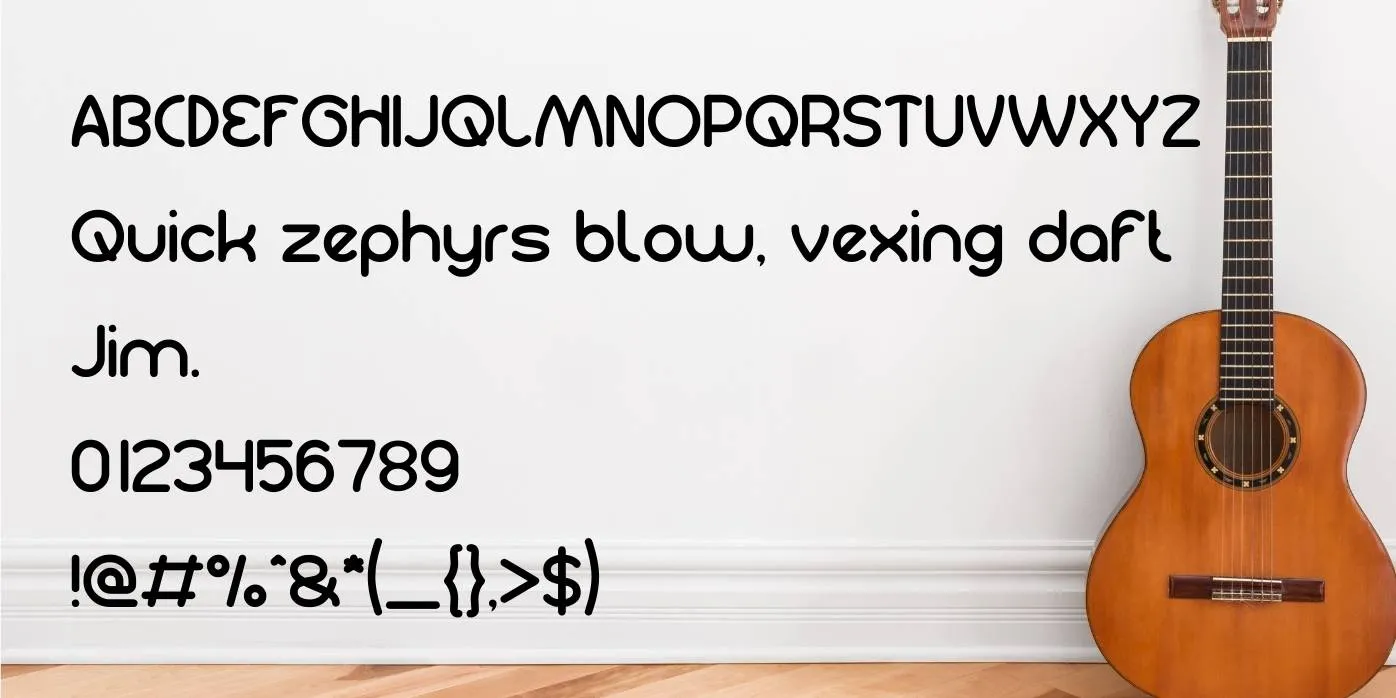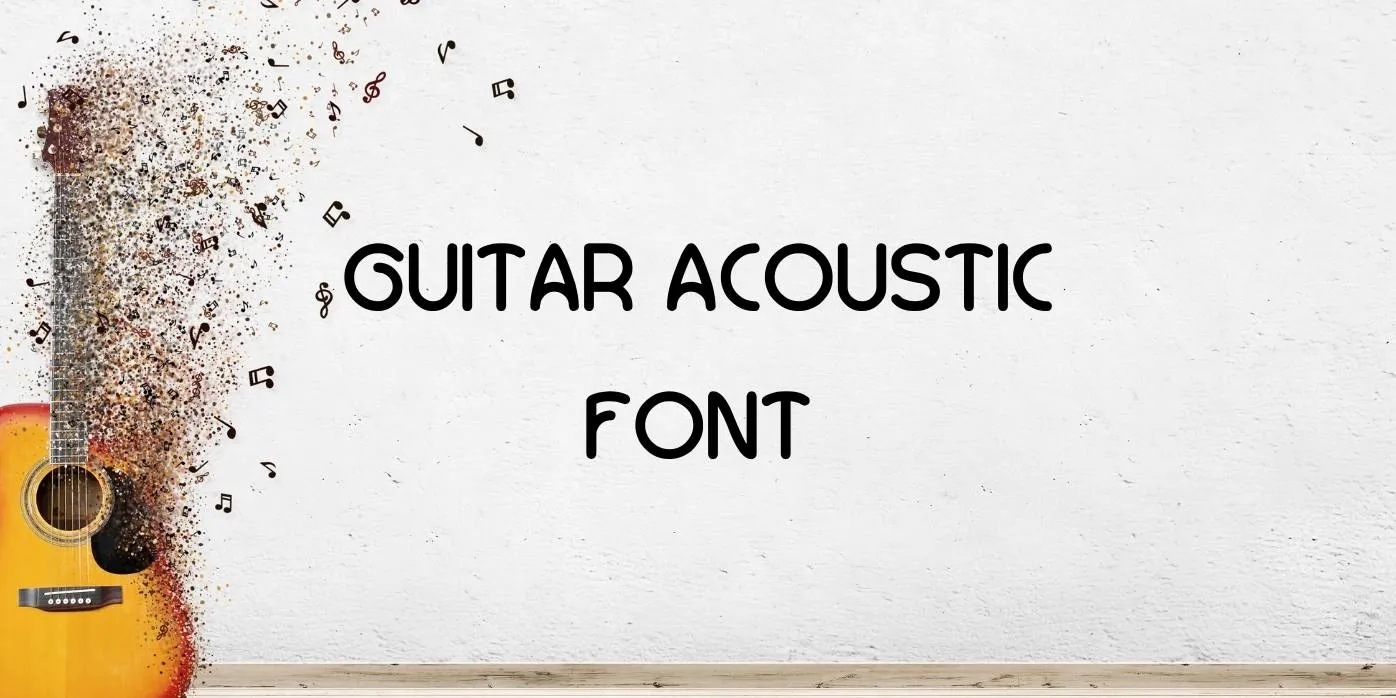
Guitar Acoustic Font
Guitar Acoustic font is one of the beautiful and unique fonts. It belongs to a Fancy typeface family font. The designer of this beautiful font is Weknow. The Font family has only TrueType features.
This typeface is the most common for a variety of fancy designs projects. There are a bunch of typefaces in this era that is providing their leading by providing stunning functions and features to the Designers and viewers. Guitar Acoustic Font is one of those. There are many downloaders of this typeface because of its wealthy usage.
Because of its Fancy shape and styling look, this typeface is ideal for any task. Whether is a Web-based design or whether it is a printing project. Guitar Acoustic font is fulfilled with all the designer’s requirements. And can be caused to get the user’s attention as well.